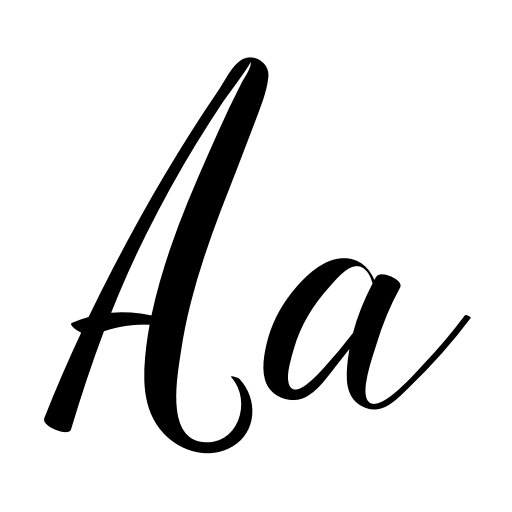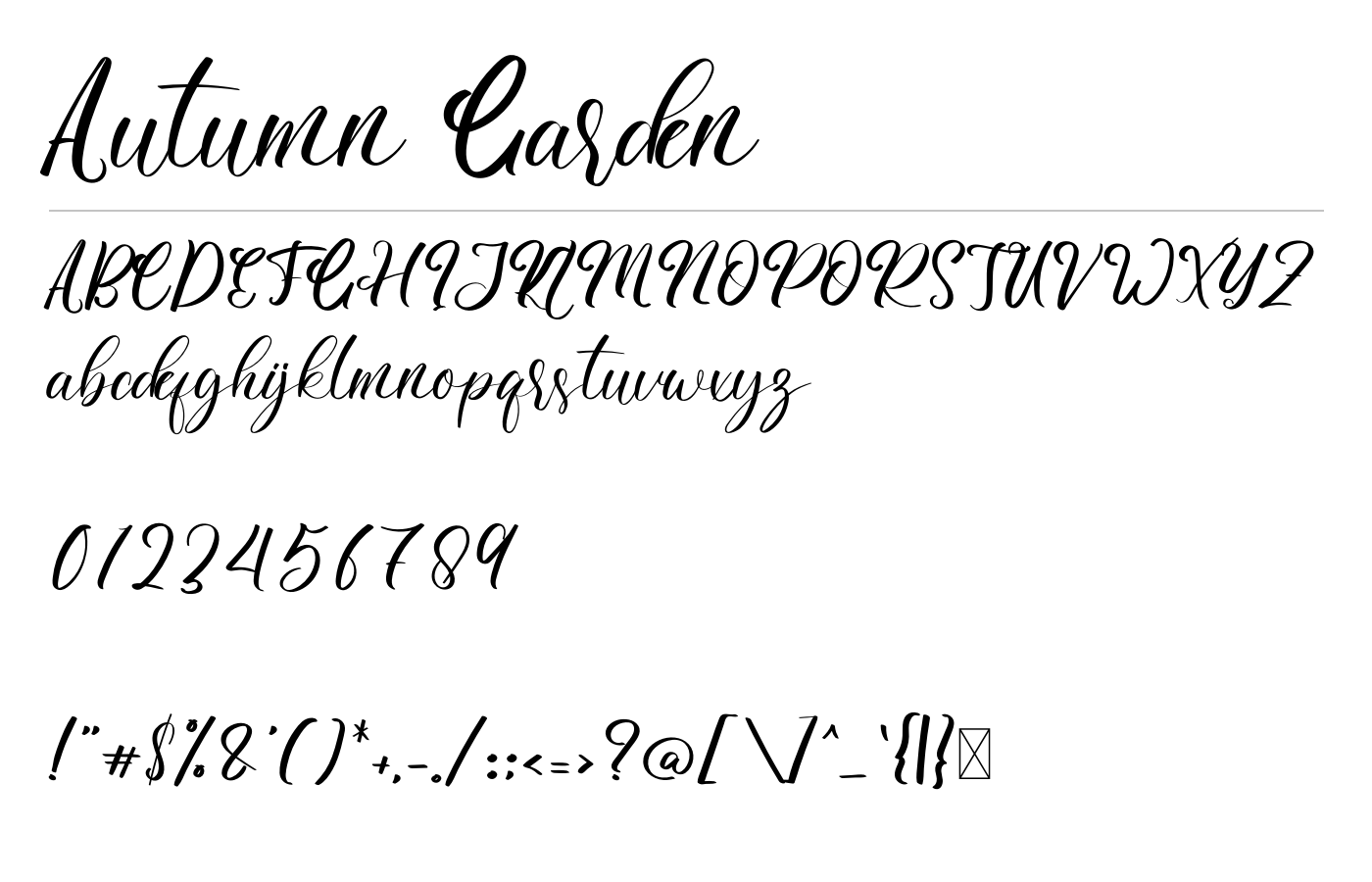
Autumn Garden is an elegant script font with a delicate, hand-lettered feel characterized by smooth, flowing strokes and graceful curves. Its slender, slightly condensed letterforms and moderate contrast give it a refined yet approachable personality, making it ideal for wedding invitations, branding, and any design seeking a romantic or sophisticated touch. This font's stylish, airy style works best in headlines and decorative uses, lending charm and elegance without overwhelming the design.
Autumn Garden Font
About Autumn Garden Font